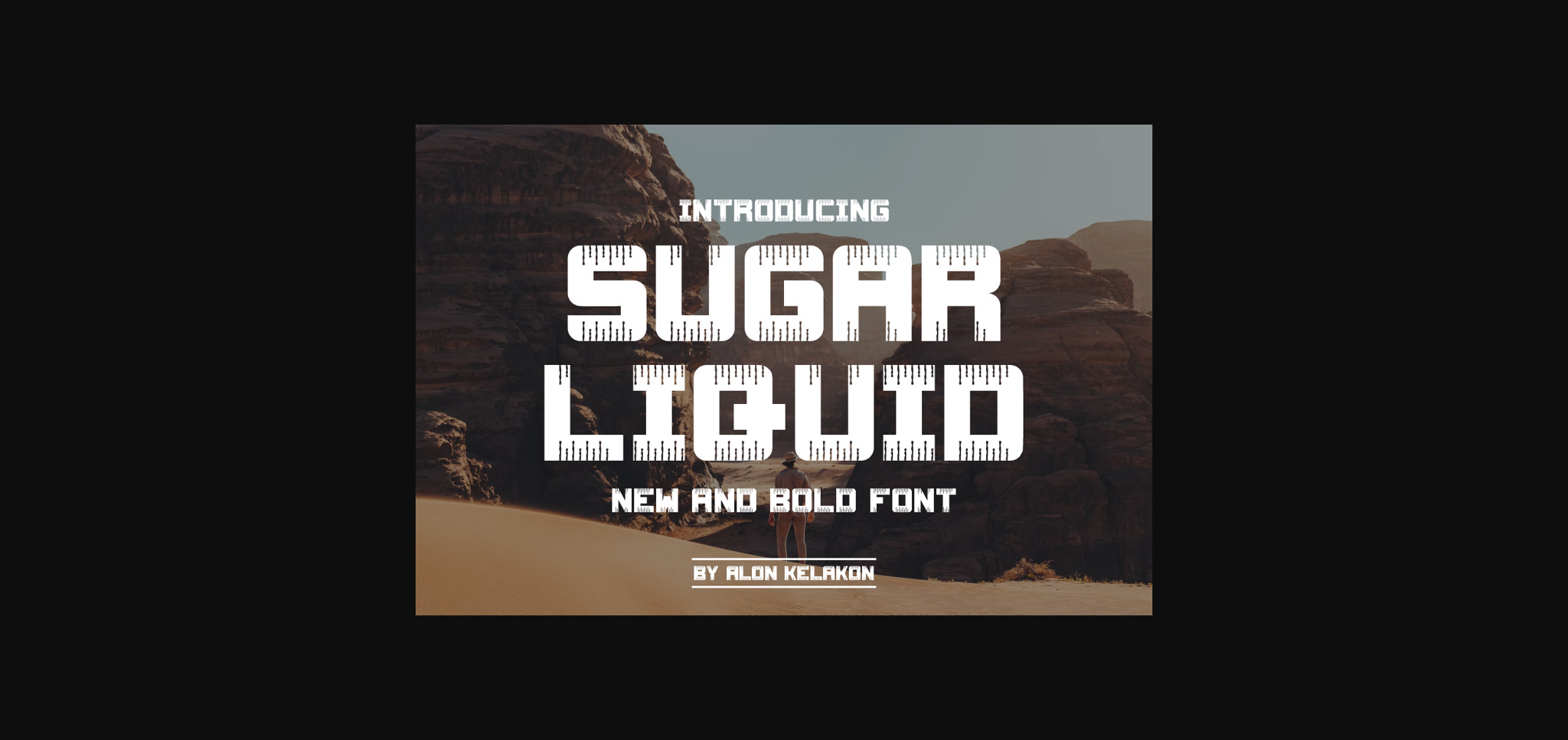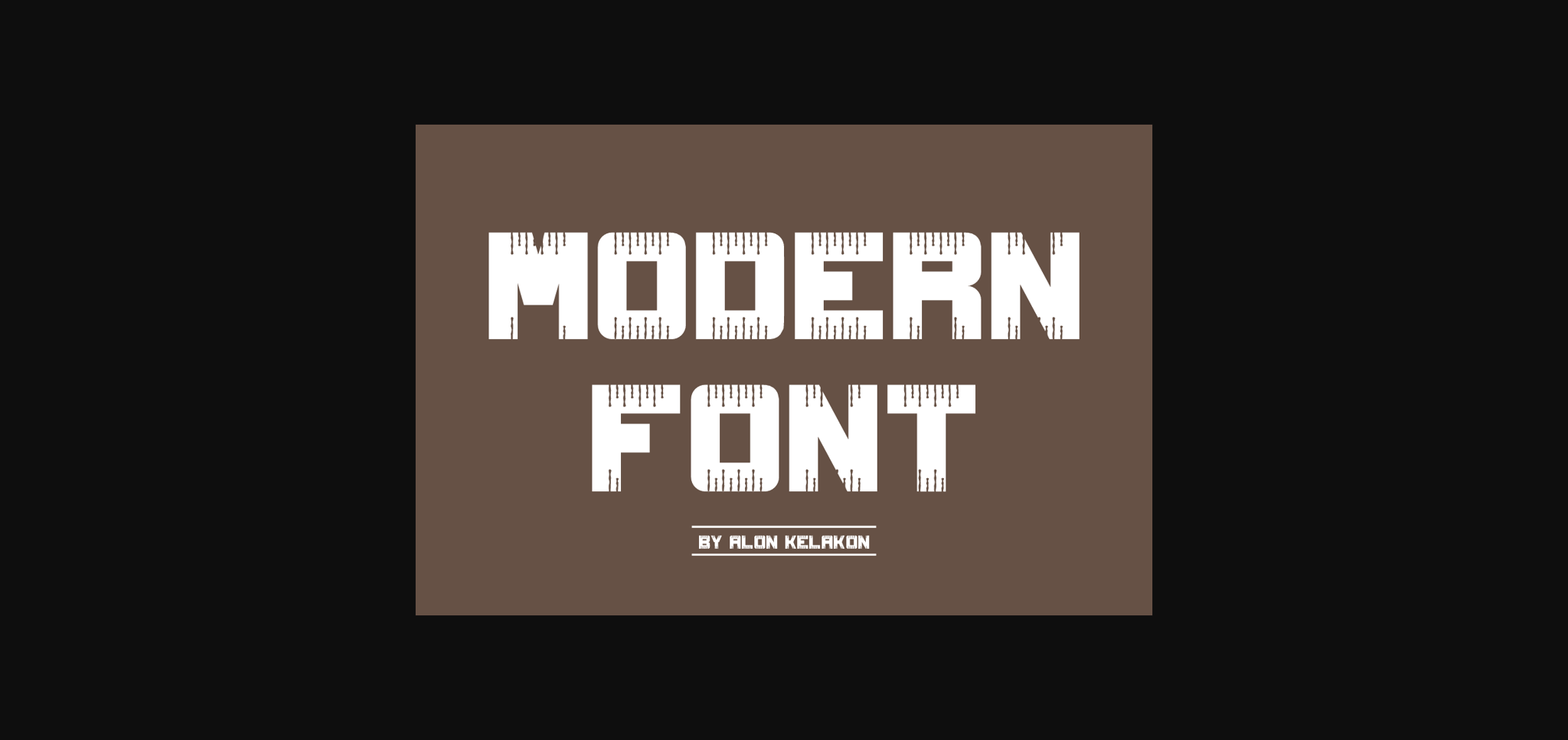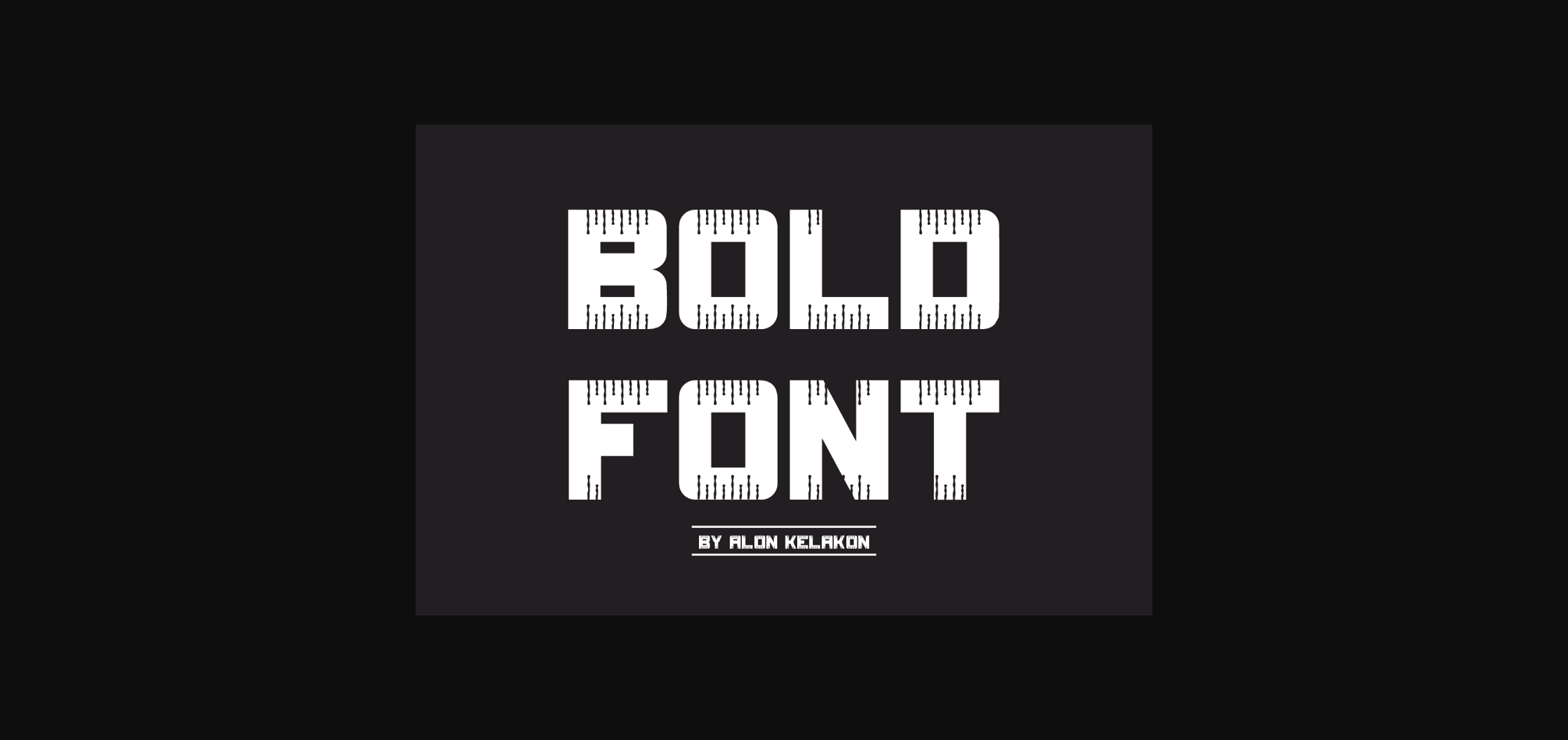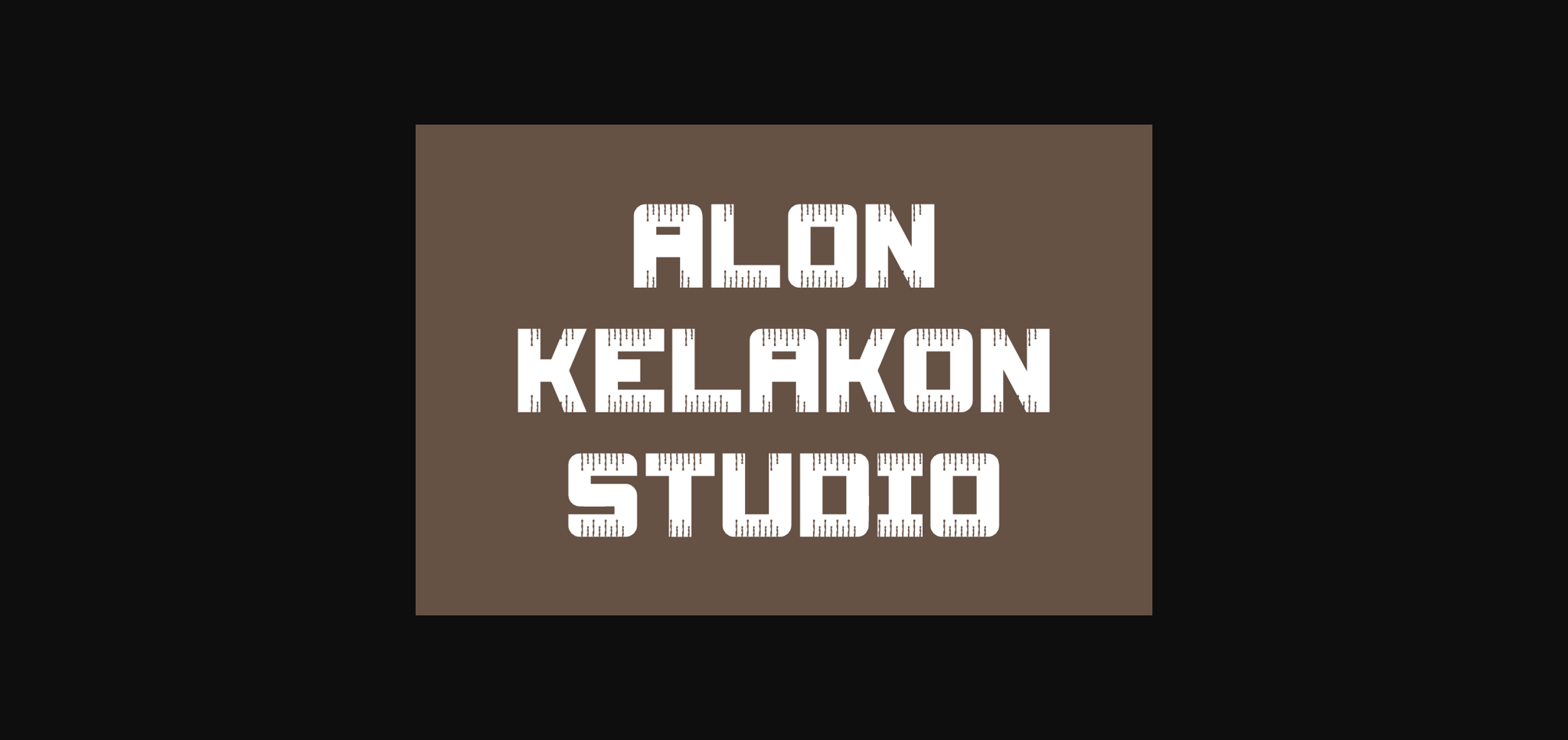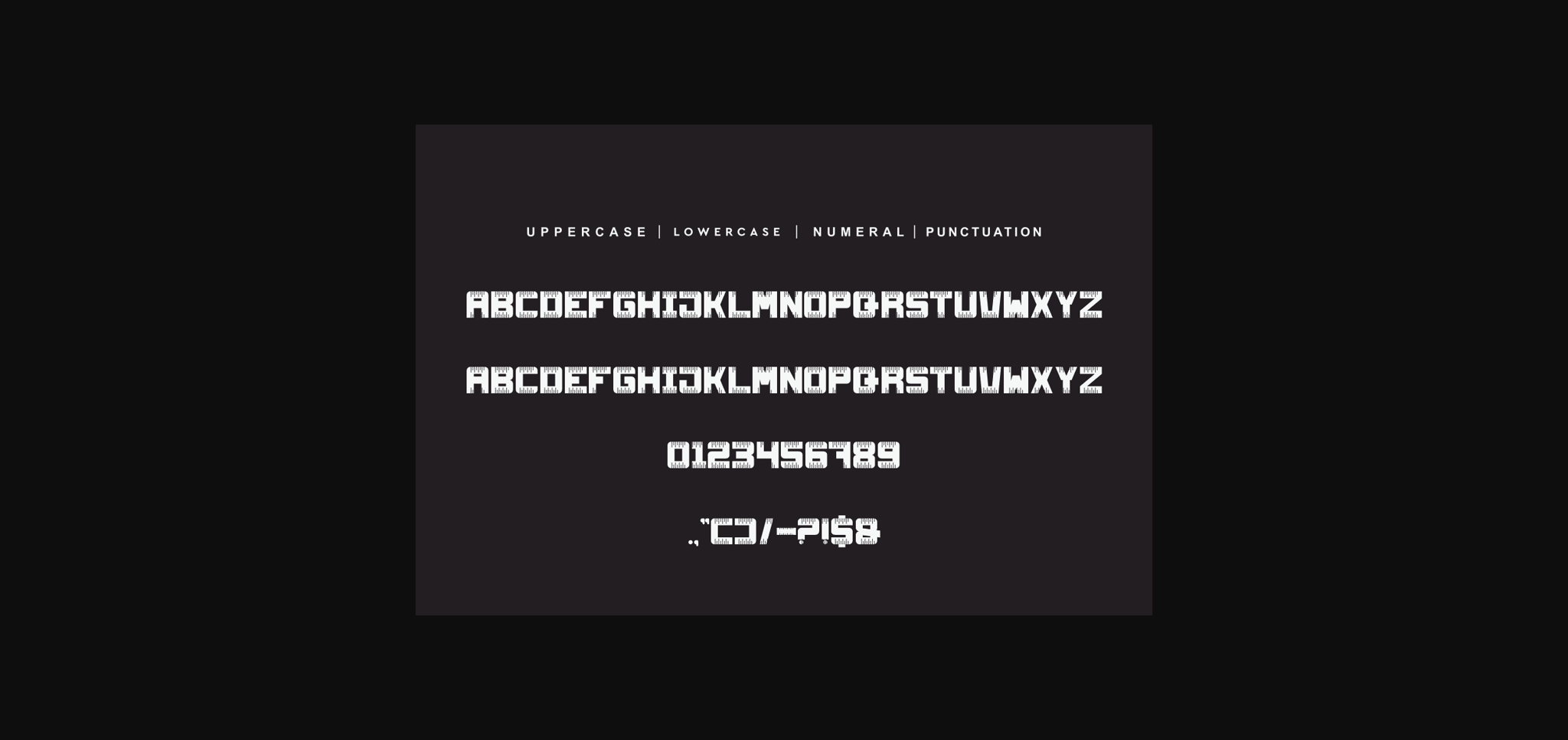
About Sugar Liquid Font
Sugar Liquid Font is unique. Ready to use for your design like labeling, clothing, movie scenes, posters, movie titles, gigs, album covers, logos, and much more.